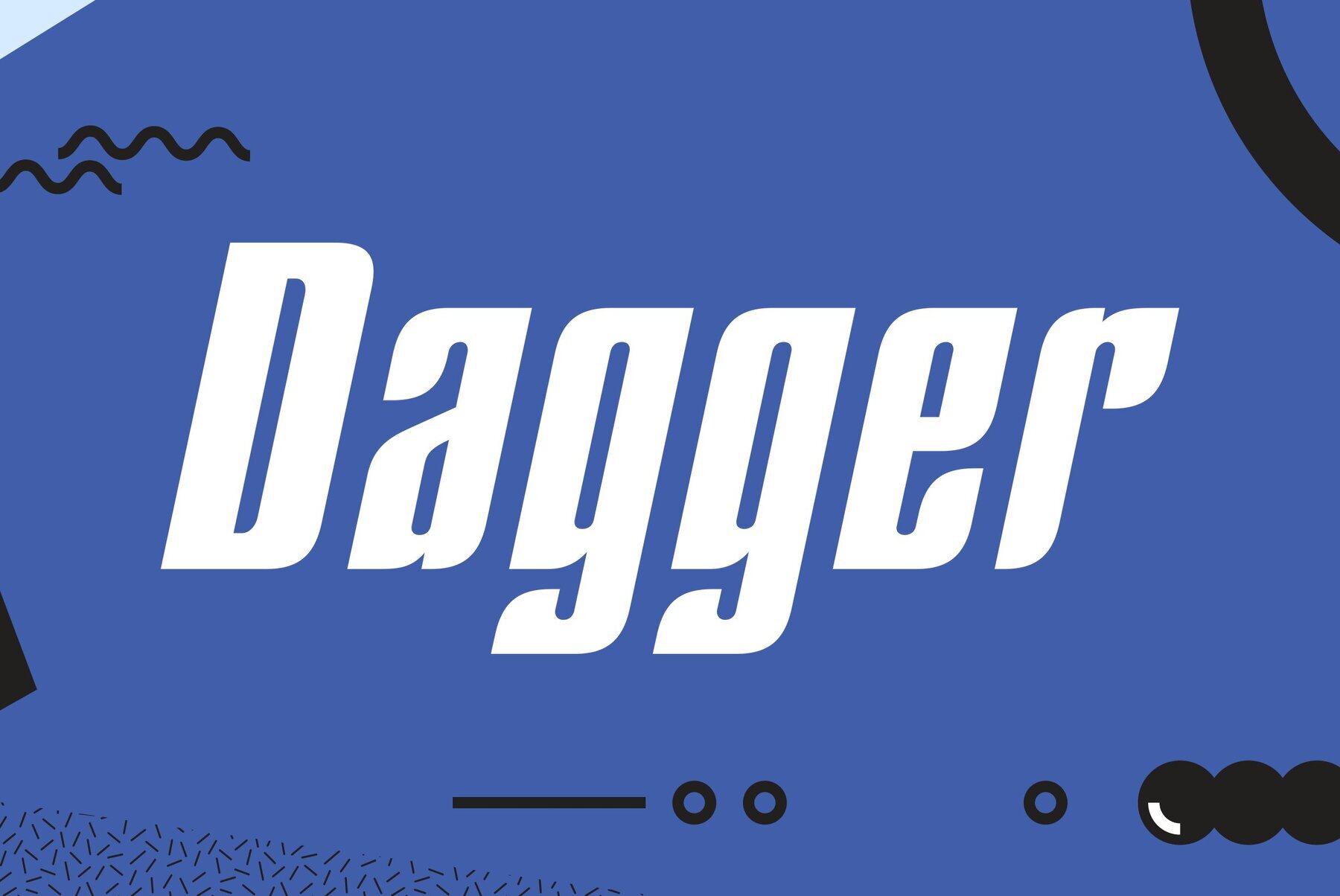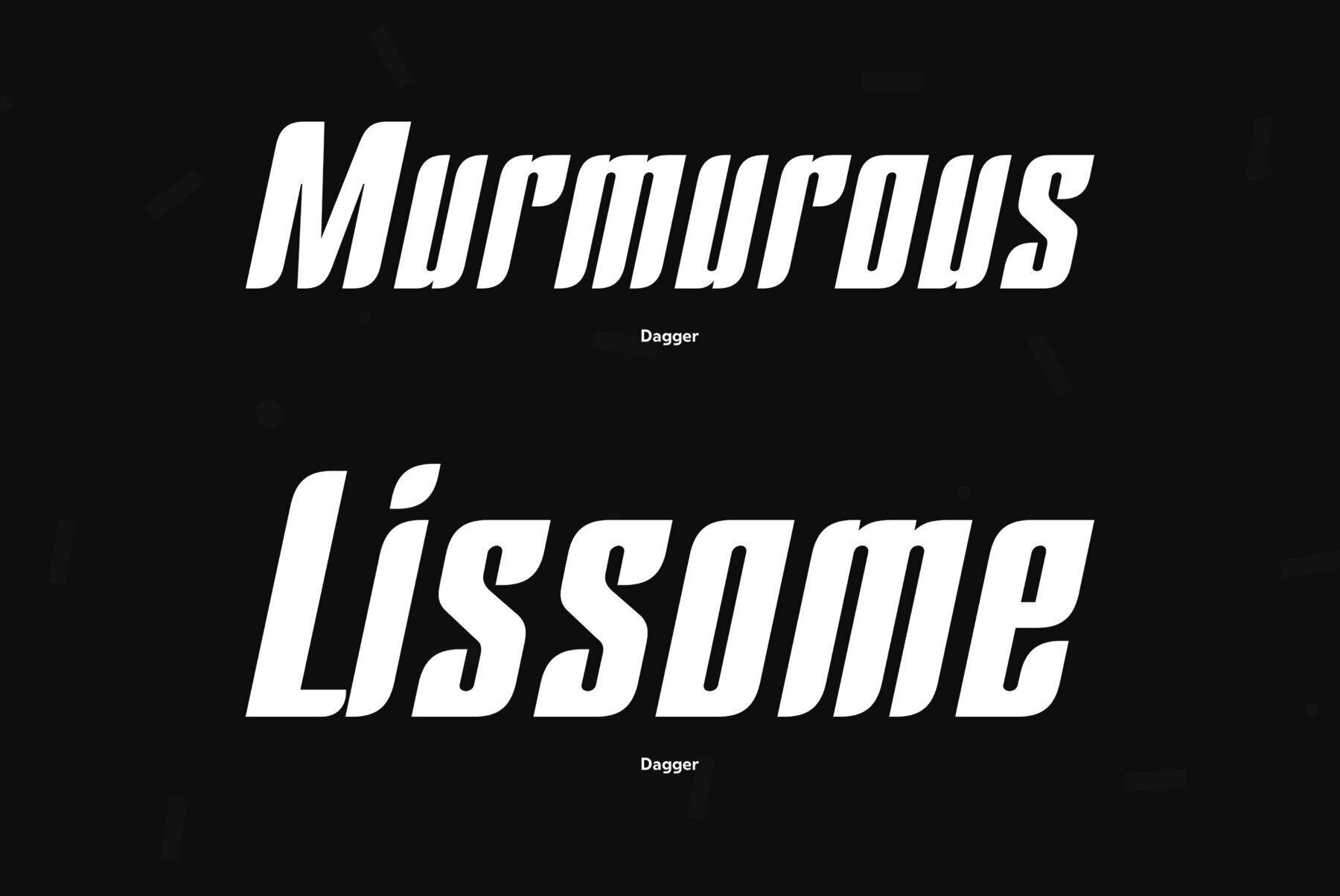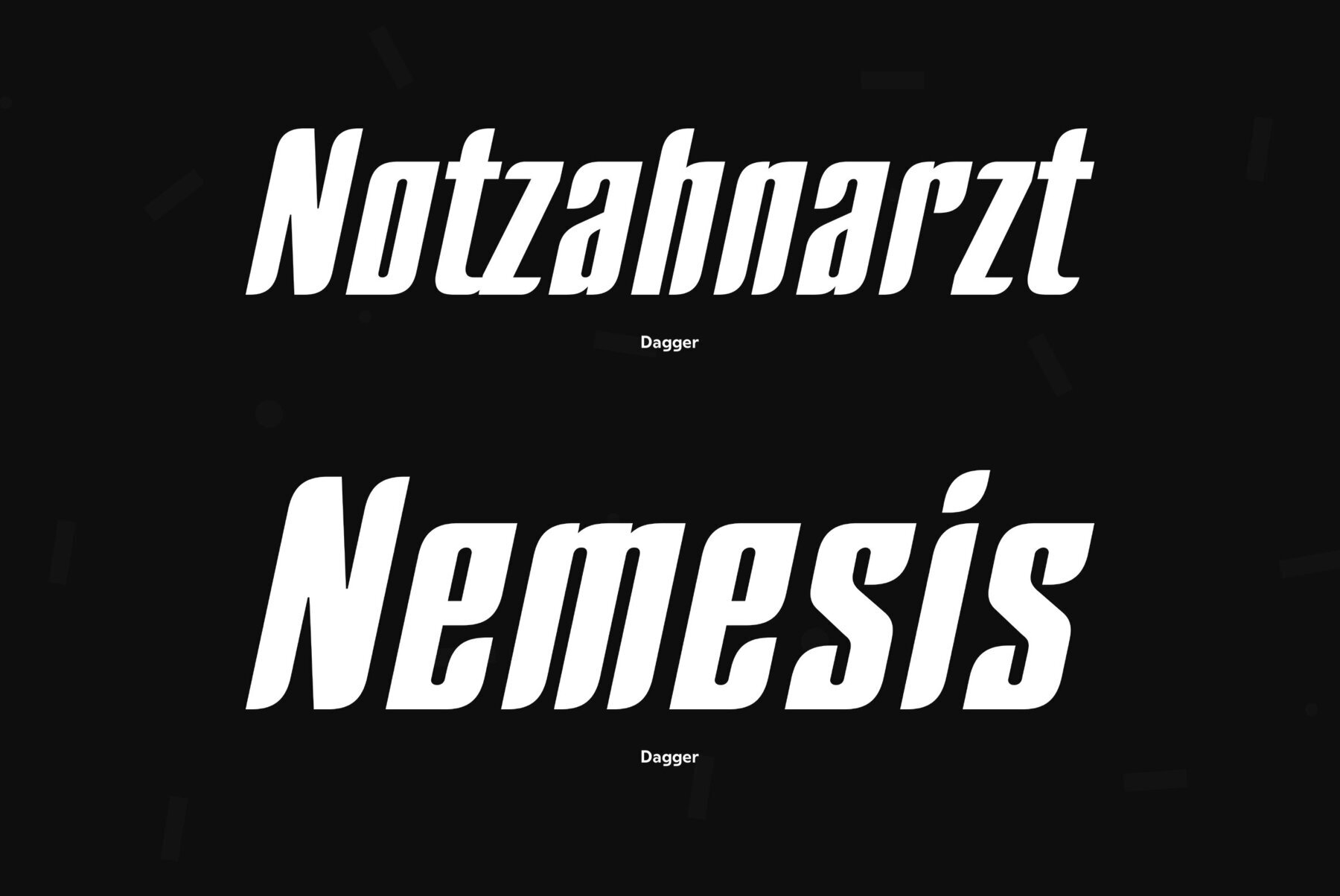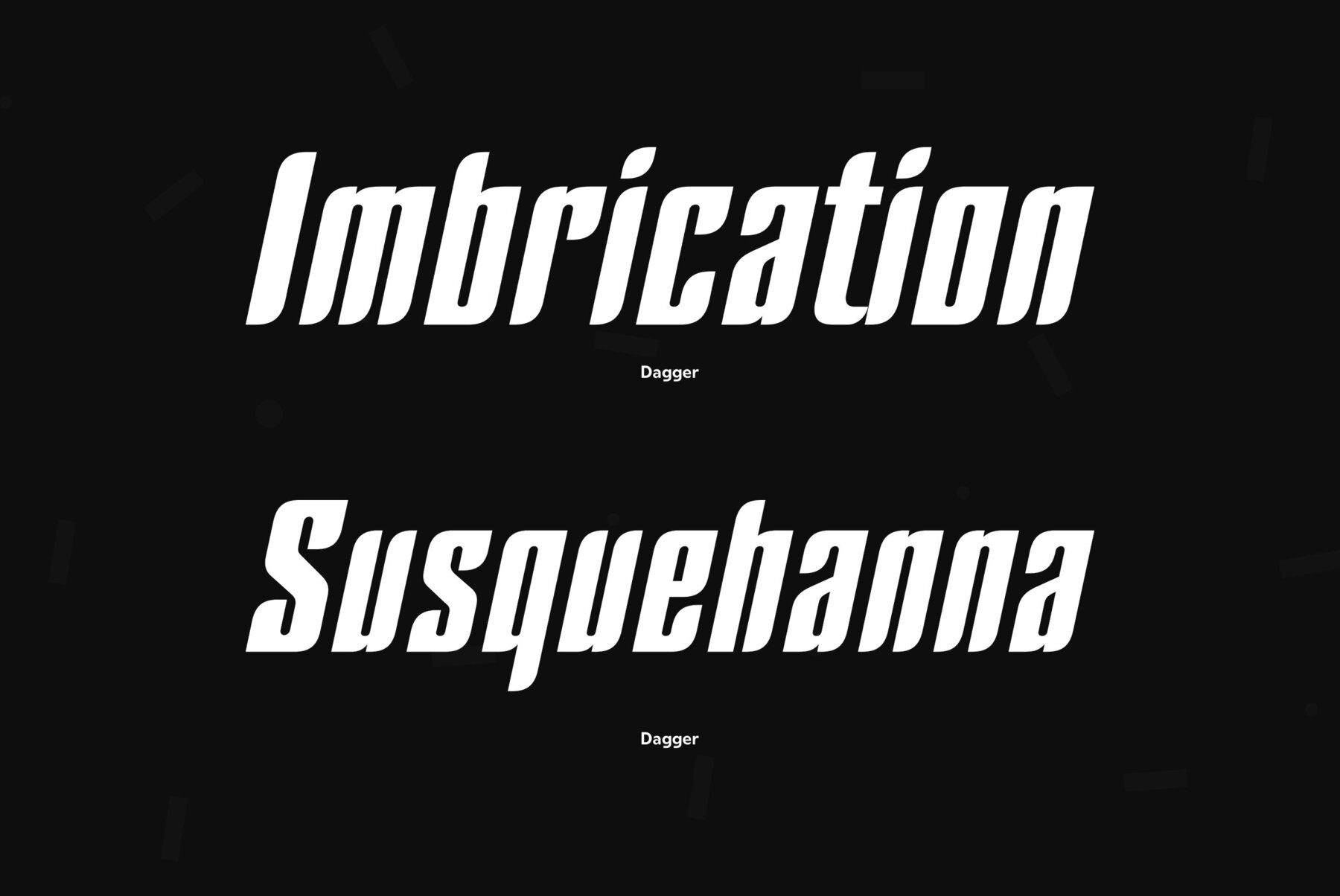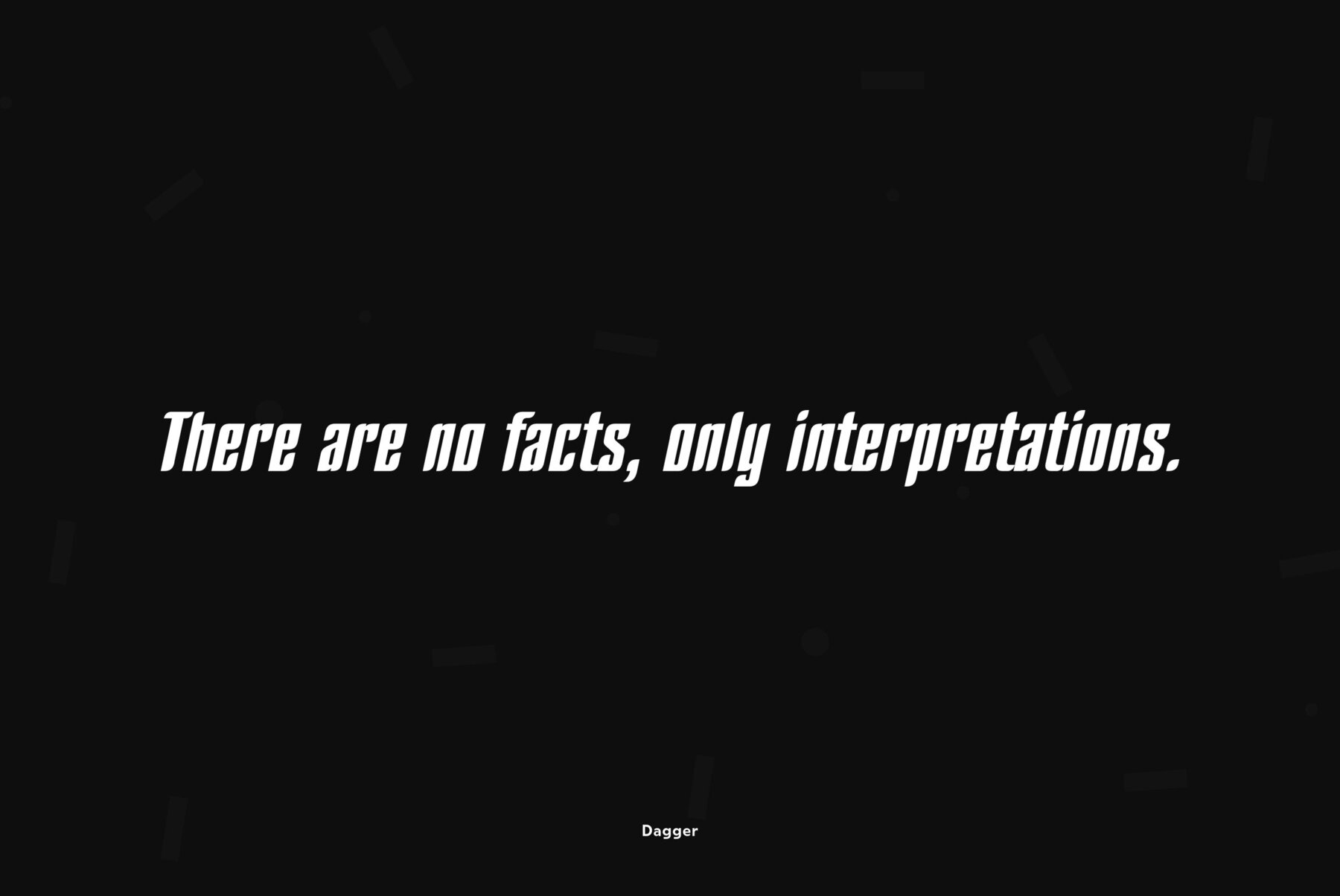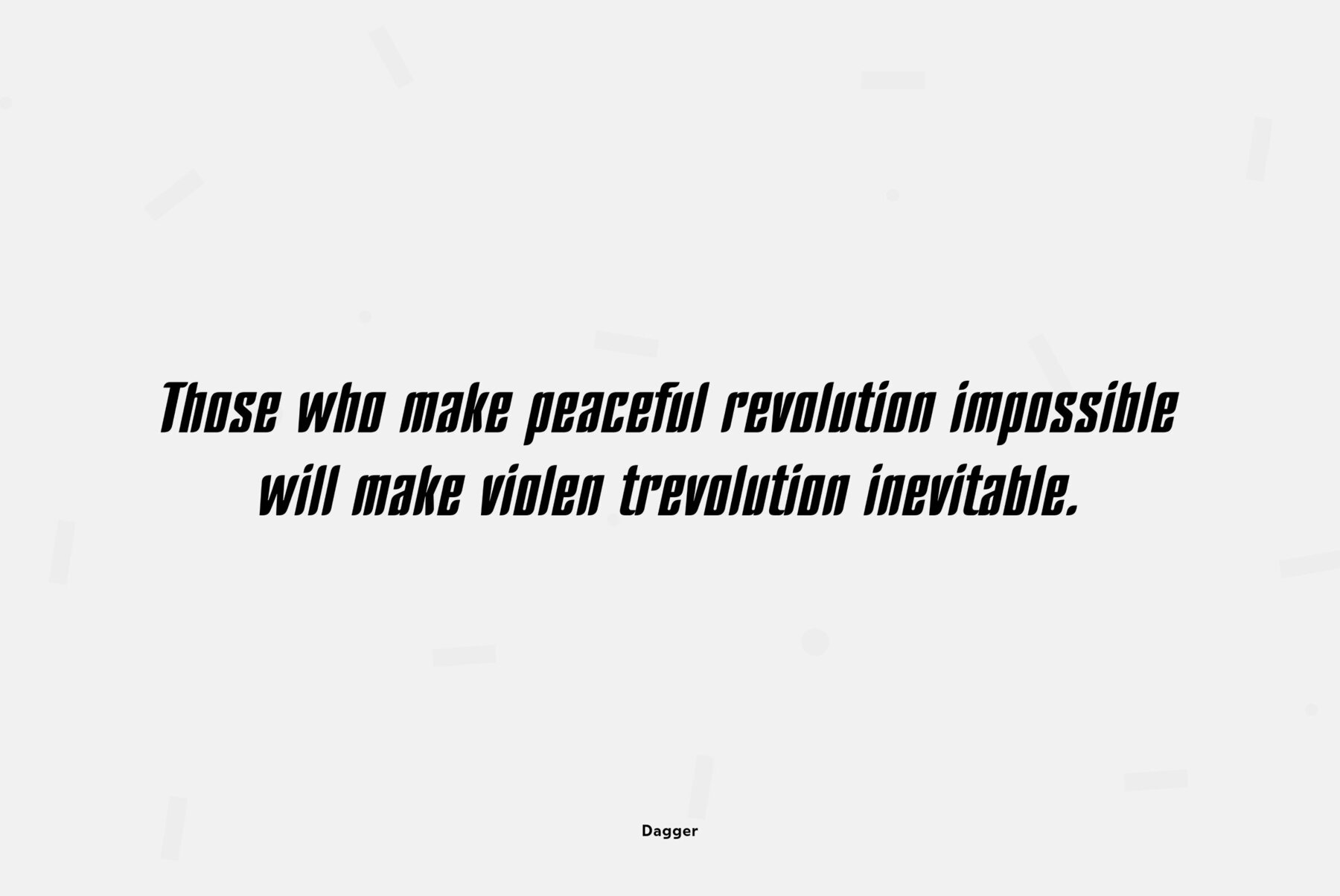
Developed at ParaType (ParaGraph) in 1996 by Alexander Tarbeev, based on PT Compact, 1991, by Vladimir Yefimov. For use in advertising and display typography.